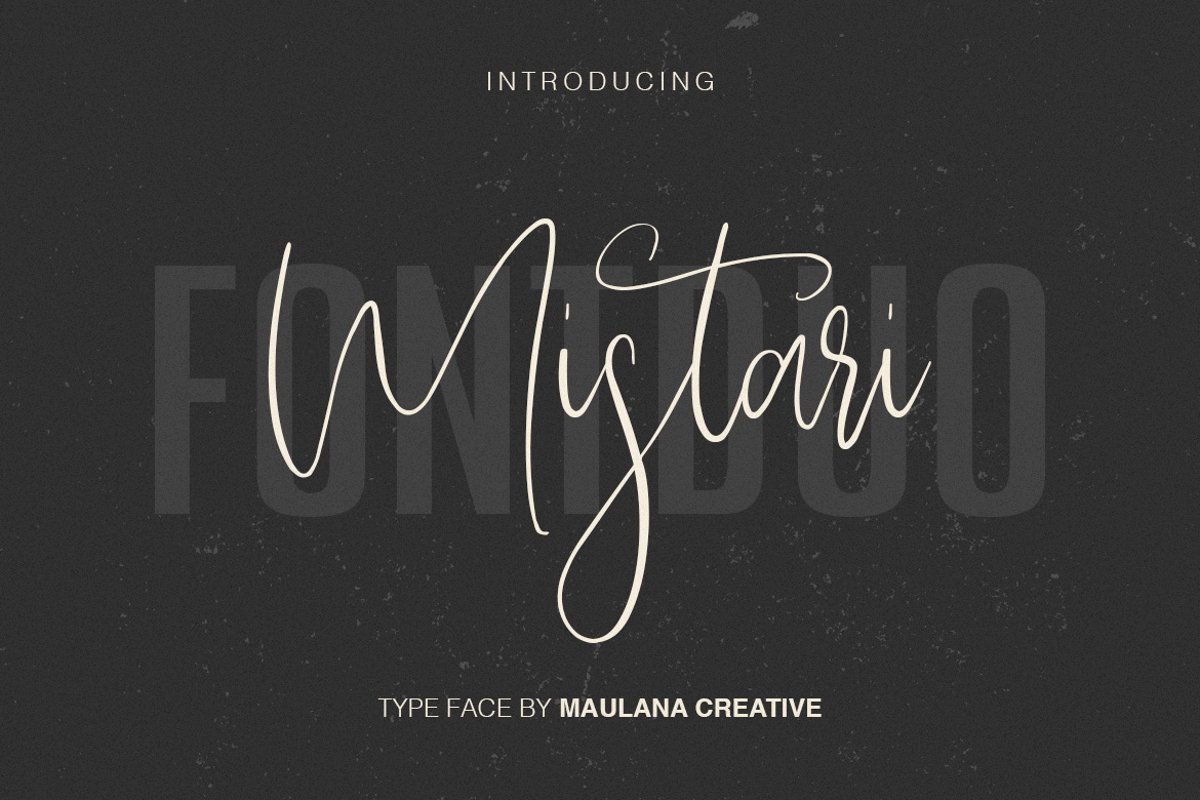
Mistari Typeface - Script And Sans is a calligraphic manuscript modern, dynamic and pretty with sans-serif. Can be used for many purposes. Such as title, signature, logo, wedding invitations, letterhead, signage, labels, newsletters, posters, badges, etc.